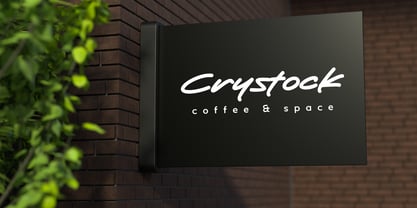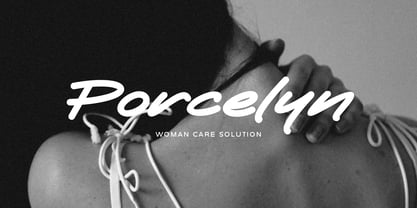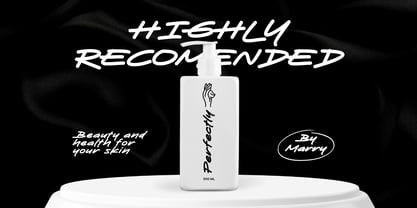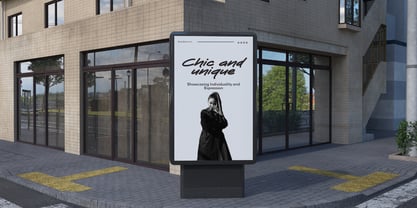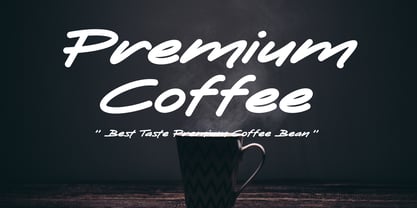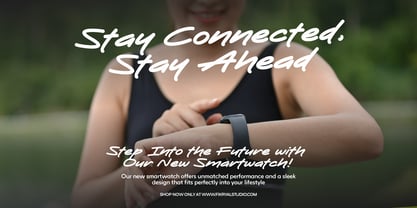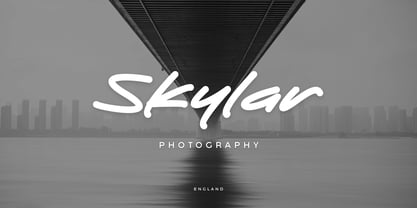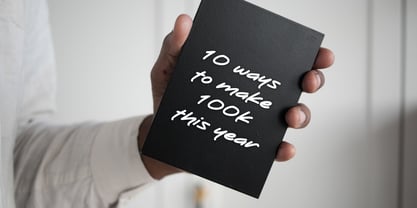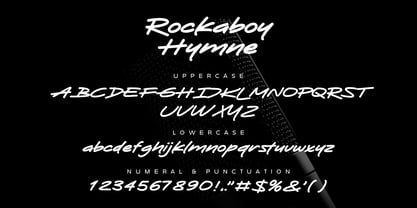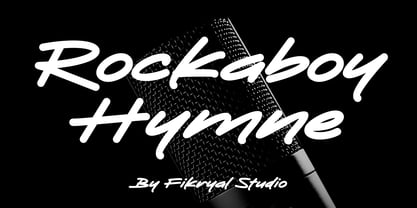
Rockaboy Hymne
by Fikryal
The Rockaboy Hymne Font Family was designed by Muhammad Fikry and published by Fikryal. Rockaboy Hymne contains 2 styles and family package options. More about this family
Rockaboy Hymne is a handwritten display font that combines bold strokes with natural handwritten charm. It comes with two weights: Normal and Bold, giving you the flexibility to create both subtle and striking designs.
Crafted with an expressive and authentic touch, Rockaboy Hymne is perfect for branding projects, logos, packaging, posters, quotes, apparel, social media, and more. Its balance between strong presence and casual handwritten flow makes it stand out in any creative work.
Whether you want to highlight your headlines, design a bold statement, or bring a personal touch to your projects, Rockaboy Hymne will make your designs shine with character and personality.